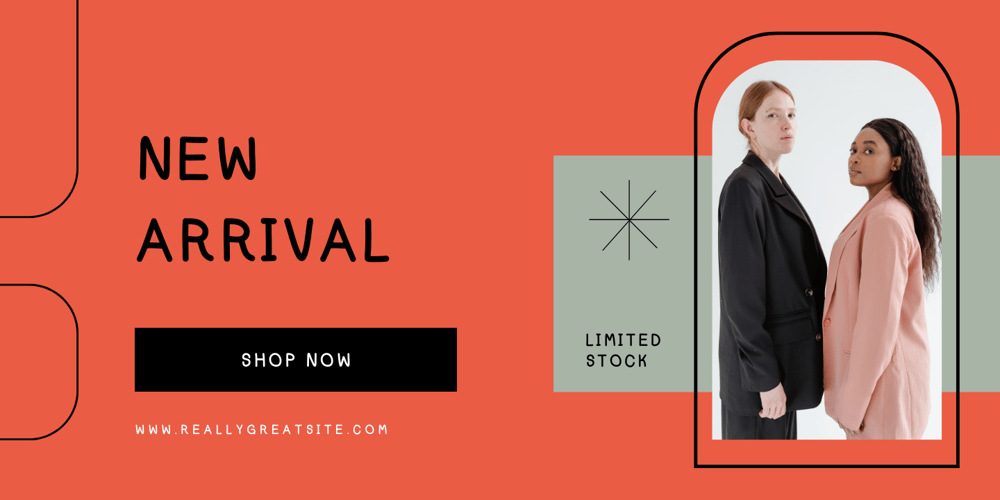
Suave silky Font Family was designed by sirikamon chaiphom and published by Aomam. Suave silky contains 1 styles and family package options. Suave silky is a handwritten font. The designer was inspired by his own handwriting in high school.This font makes me go back to my days as a student.